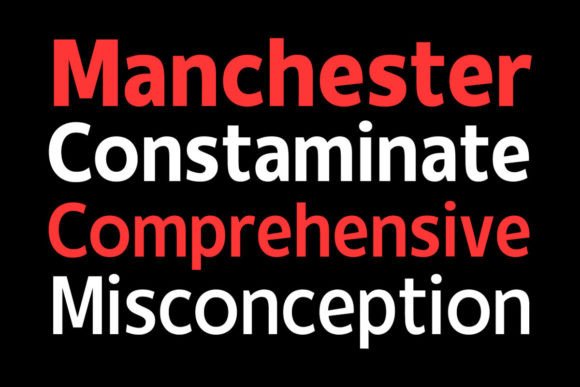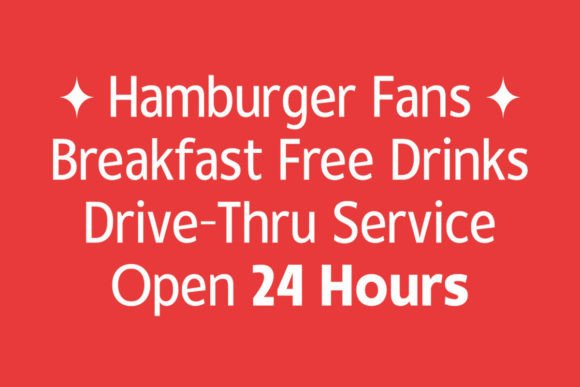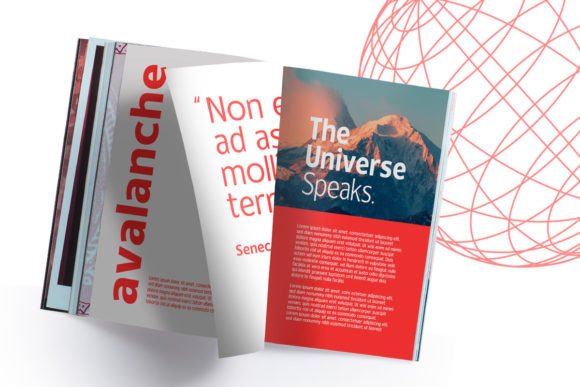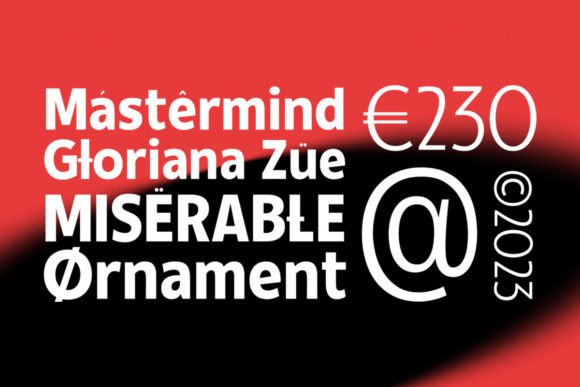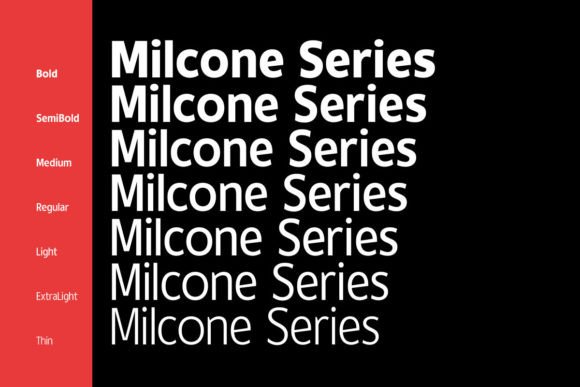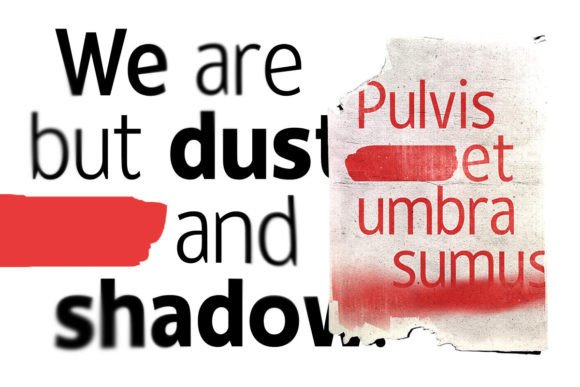
Introduction to Milcone Font Font
Fonts play a crucial role in design, and the Milcone Font font is a typeface that brings both character and versatility to any project. Whether you’re working on a branding project, a website, or a print design, the Milcone Font font offers a unique style that can elevate your work.
Introducing Milcone Sans, a versatile variable font designed to elevate your projects with a modern and professional touch.
With its 7 weight variations, this font offers flexibility and adaptability to suit any design need Whether itβs for digital or print, Milcone Sans delivers a sleek and contemporary aesthetic that exudes professionalism.
Key Features of Milcone Font Font
Why Choose Milcone Font Font?
The Milcone Font font is more than just a typeface β it’s a design tool that helps you communicate your message with style and clarity. Its unique character set and versatile design make it suitable for a wide range of applications, from elegant invitations to bold headlines.
With its carefully crafted letterforms and balanced proportions, the Milcone Font font ensures readability and visual appeal across all mediums.
What makes Milcone Font font special?
The Milcone Font font stands out with its unique design, exceptional readability, and versatility across various design applications.